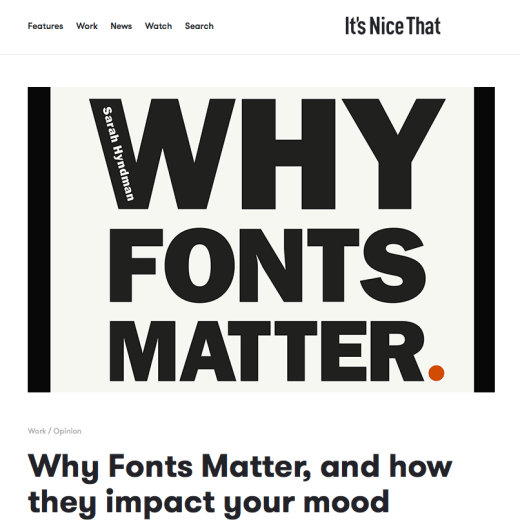
Graphic designer Sarah Hyndman.
Our tenth interview for Review of the Year sees us chat to designer Sarah Hyndman about the incredible experiences she’s had this year and the work she continues to do with Type Tasting.
Designer and type fanatic Sarah Hyndman shares her most-cherished books with It’s Nice That.
Sarah Hyndman is a graphic designer, author, researcher and the founder of Type Tasting, an experimental type studio delivering talks, workshops and events. Sarah researches and teaches about the psychology of type and how to use it to communicate more effectively. She runs workshops, gives talks and creates events such as Wine and Type Tastings, which pose the question: “Do you judge a wine by its label?” Sarah is also the author of Why Fonts Matter, which we published an extract from earlier this year that discussed the effects of typography on our emotions. She is just on the cusp of publishing a second book, How to Draw Type and Influence People, which will be published by Laurence King in spring 2017.
The designer’s inspiration comes from outside the design world, taking ideas from different genres and exploring them through the lens of typography. With this abundance of influences we wanted to find out what sits atop Sarah’s bookshelf and lucky for us it’s a diverse mix of books on packaging design, typography and food.
Why Fonts Matter, and how they impact your mood, It’s Nice That
Mood
In celebration of the official launch of Why Fonts Matter in the US today: This post about fonts and mood became the most popular post on It’s Nice That in the first three months of 2016. “The one womantour-de-force behind Type Tasting … looks at the power typography has over our lives and senses.”
Why Fonts Matter, and how they impact your mood
It’s Nice That ‘Why Fonts Matter, and how they impact your mood’
Typography might just help you date, solve obesity and impact your mood; so we’ve learnt from type fanatic Sarah Hyndman. We’ve previously dubbed her “the one woman tour-de-force behind the Type Tasting enterprise”, which looks at the power typography has over our lives and senses. She’s now published a new book on the subject, Why Fonts Matter, and has kindly offered us an extract looking at the effects of typography on our emotions.
“Physically, we use our voice, facial expressions. gestures and posture to convey a wide range of emotional cues from the subtle to the dramatic. Typefaces and the way they are used provide a similarly extensive emotional range typographically.”